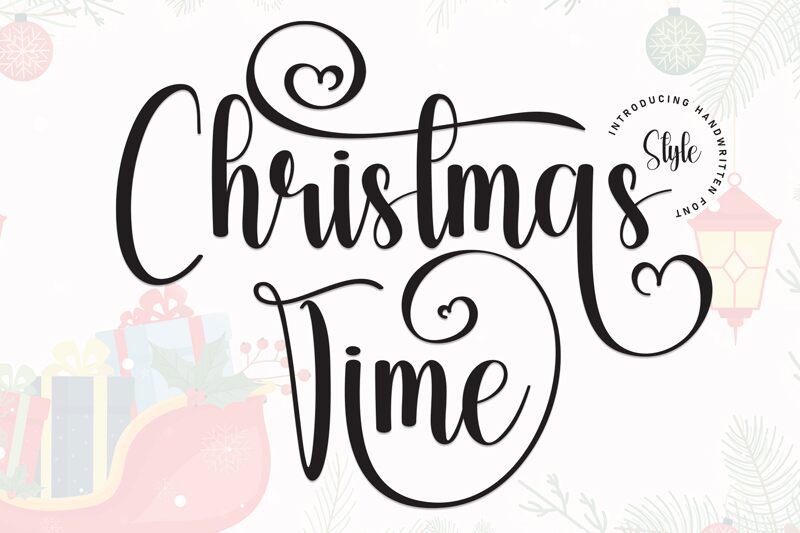
Christmas Time font by Scratchones is a free font perfect to complement your holiday-related projects. The single-style font features a script that is flowing and elegant with decorative, sophisticated touches. The letter set presents a graceful finished look thanks to its handwritten style which is warm and inviting.
The font is more than suitable for writing headlines on greeting cards and featured posters. Use it for wrapping paper patterns, festival flyers, boutique signs, gift shop logos, t-shirt designs, product packaging, and magazine covers.
Our latest style letters are ideal for a variety of applications, including wall displays, wedding invitations, social media post logos, advertisements, product packaging, product designs, labels, photography, watermarks, invitations, and stationery. Whether you're working on a personal project or a professional design, our fonts will add a touch of tasteful handwriting to your work.